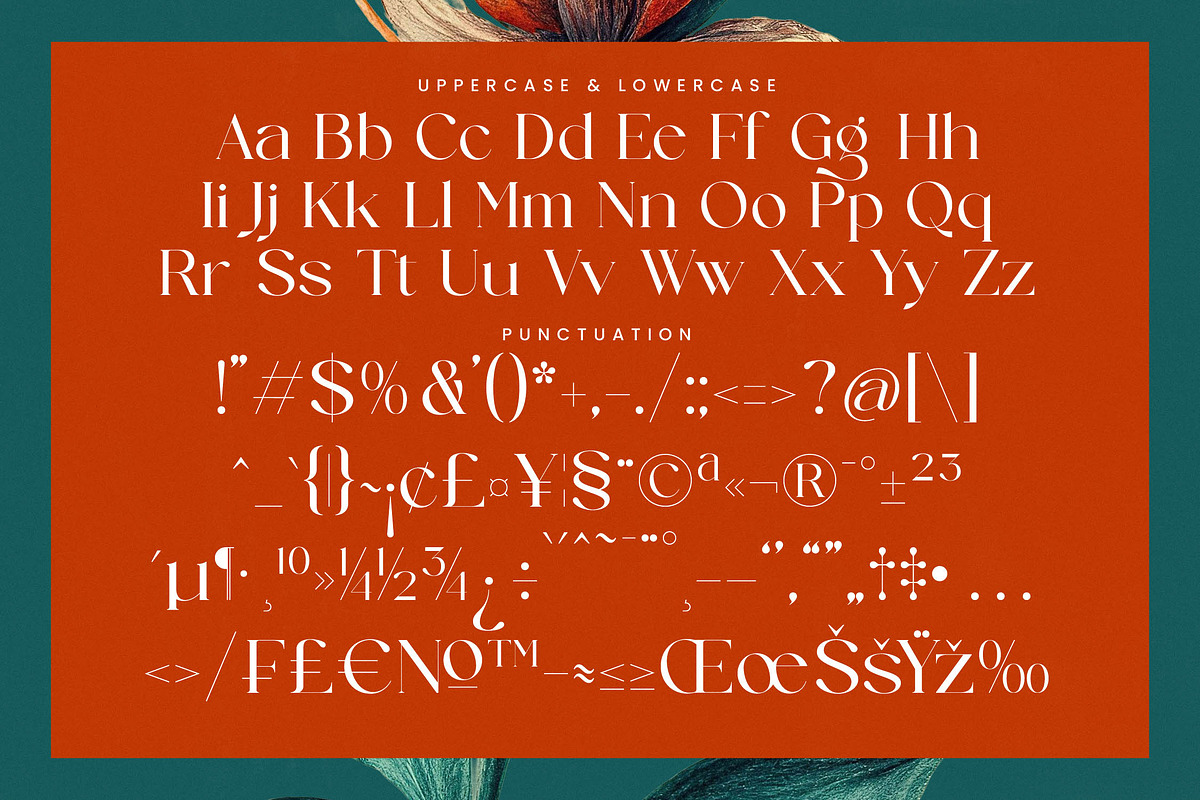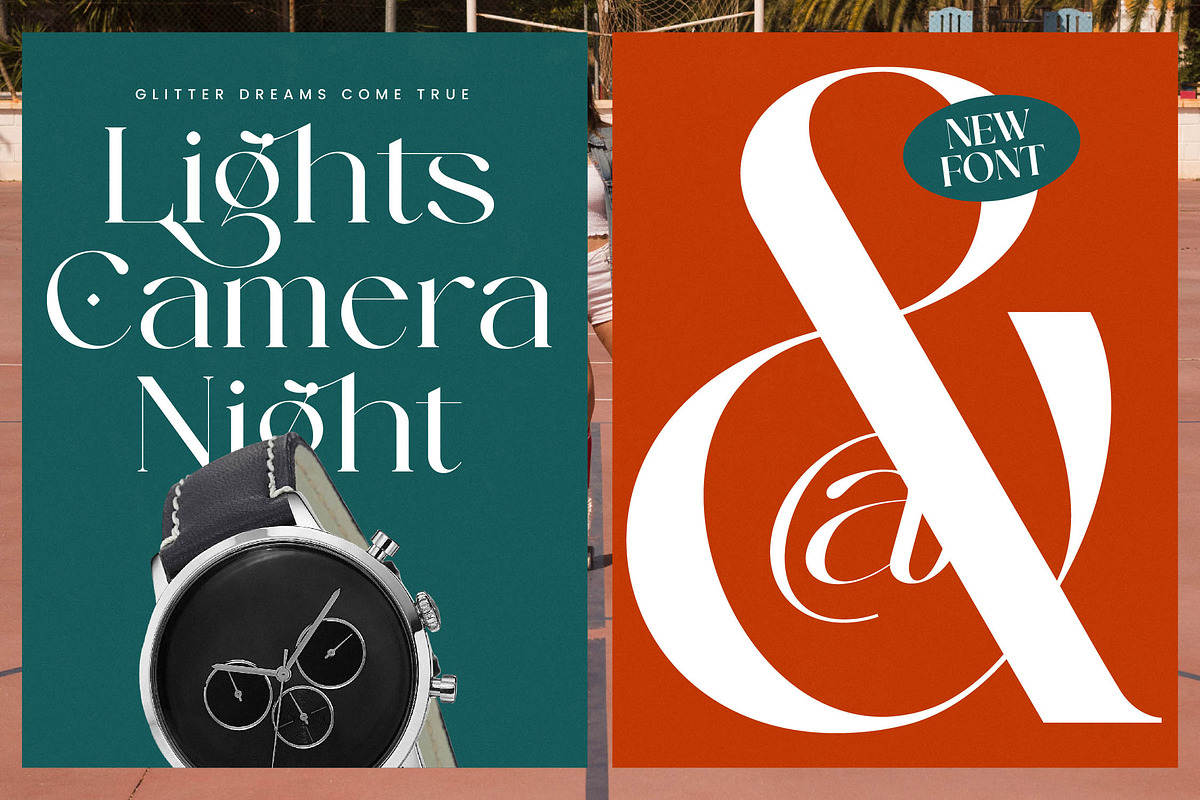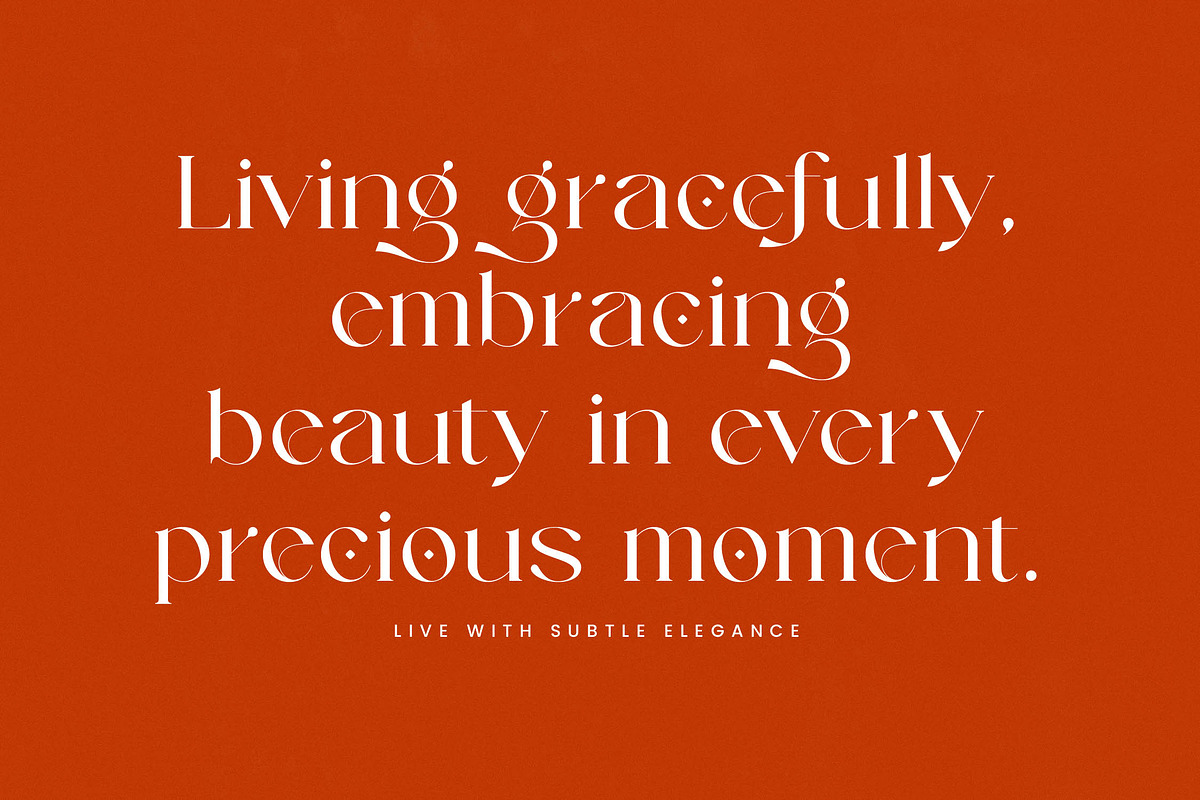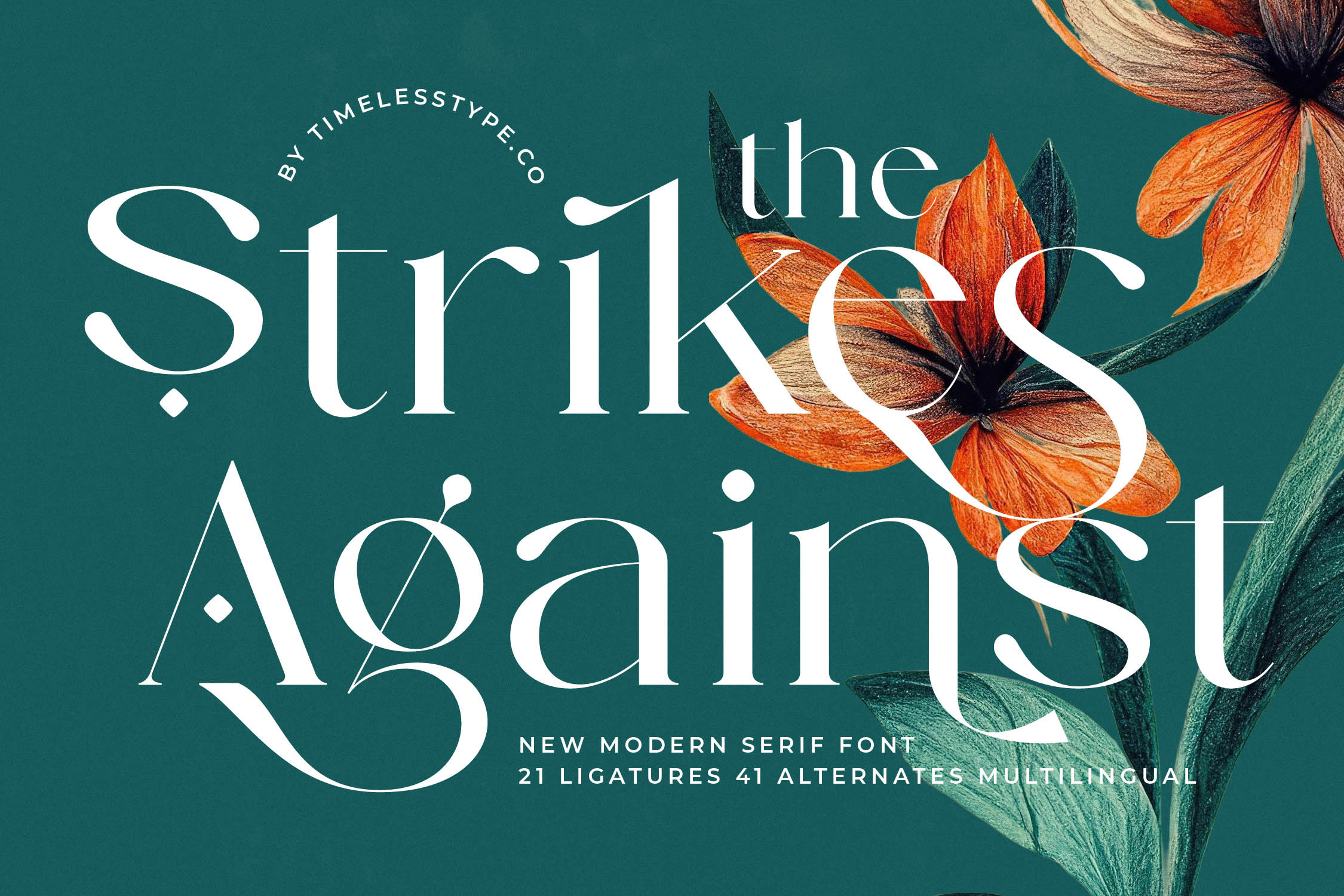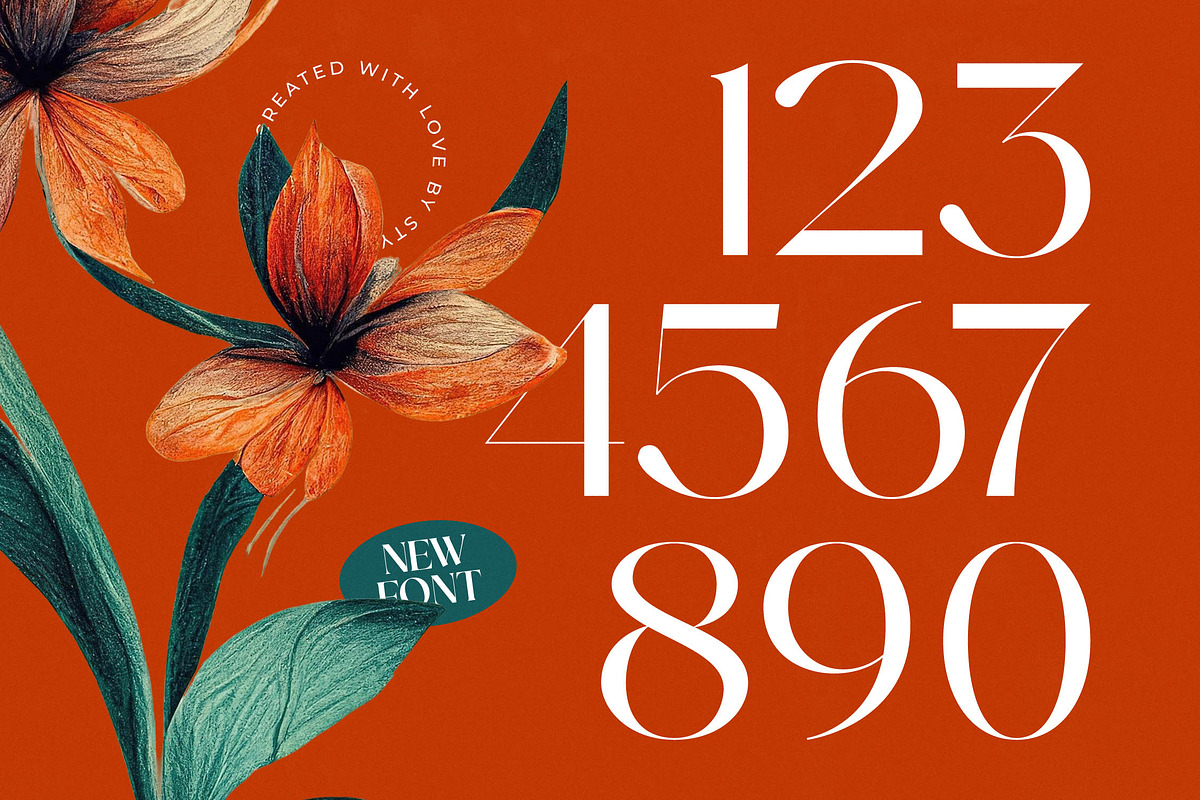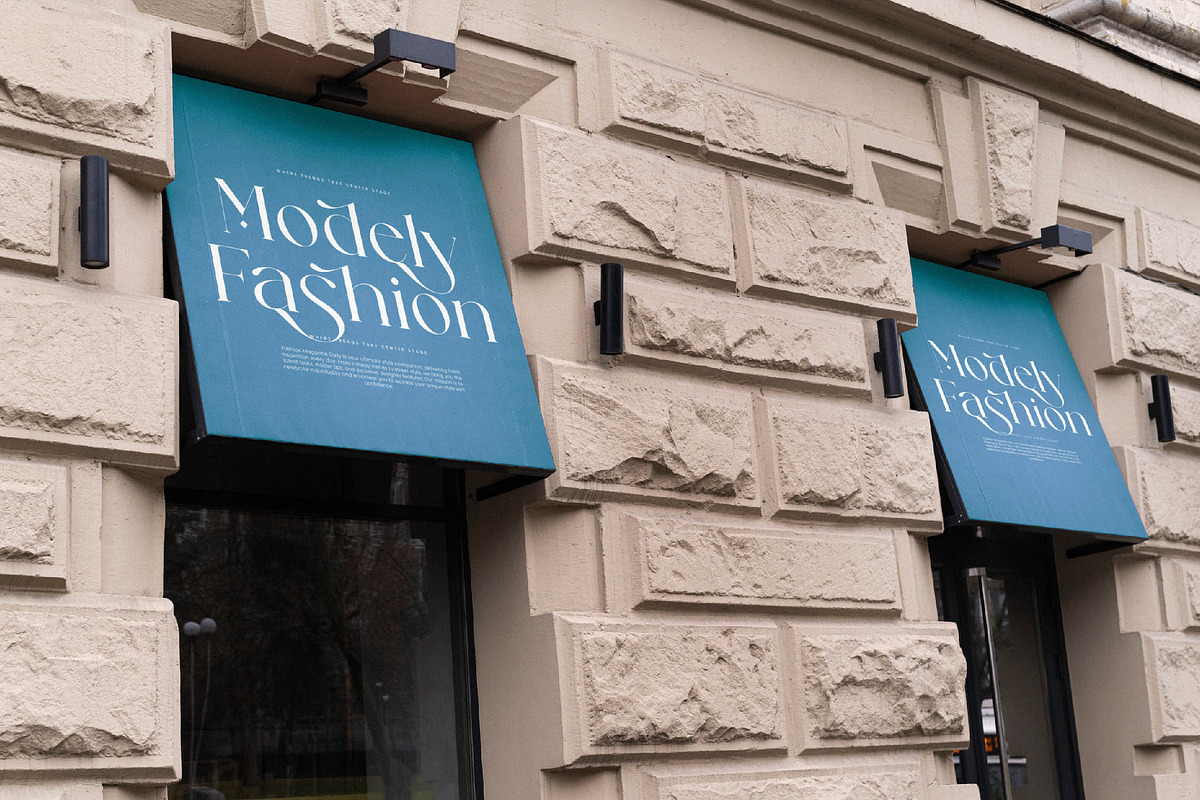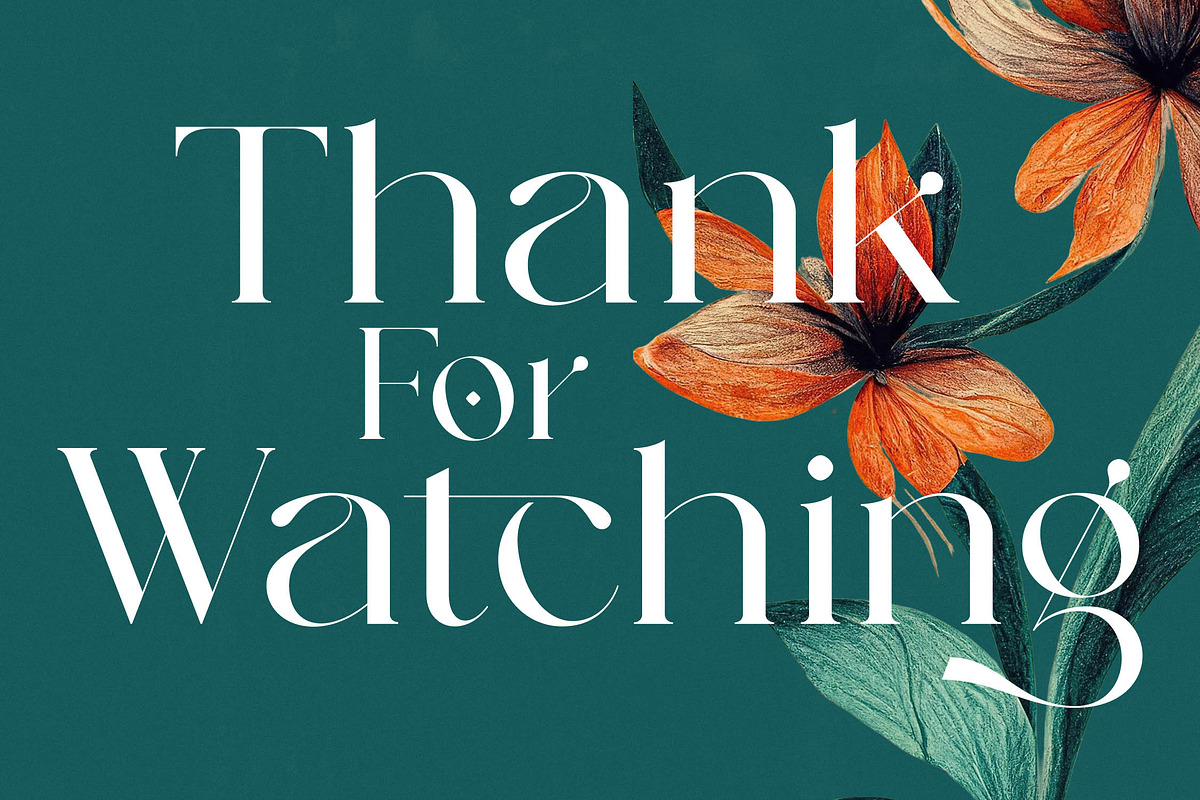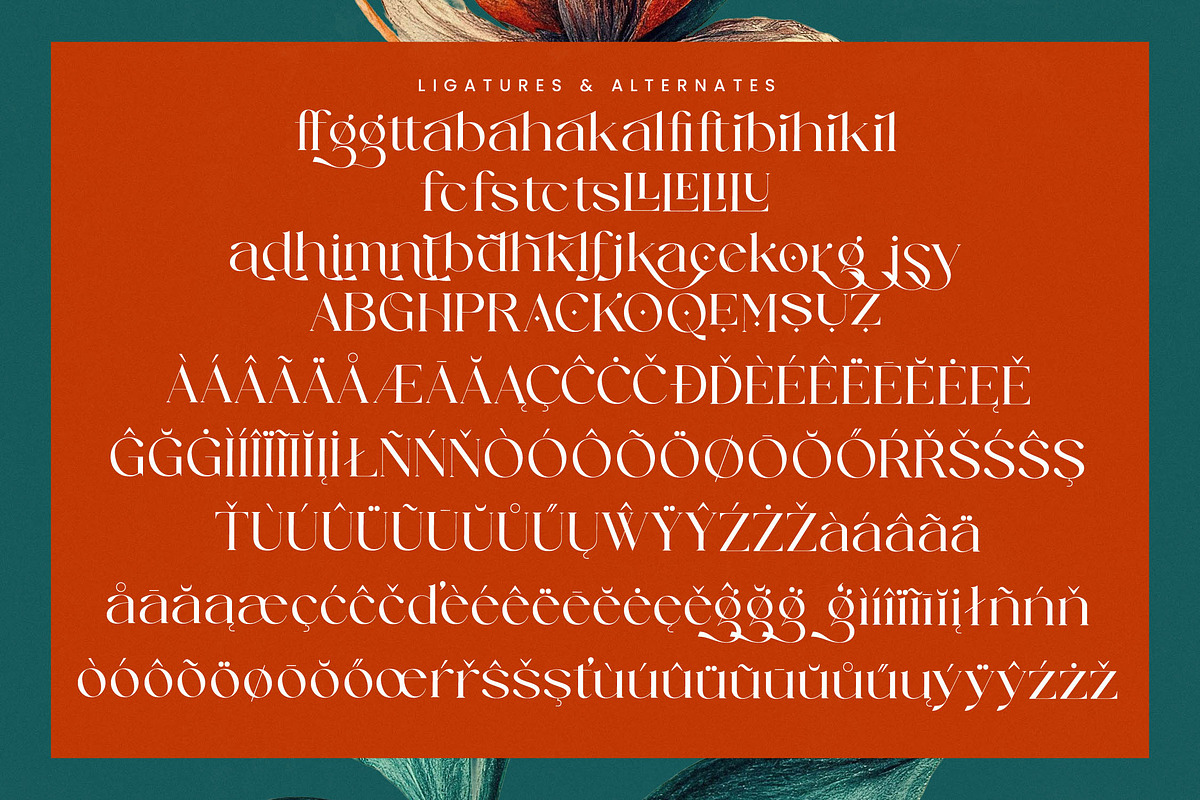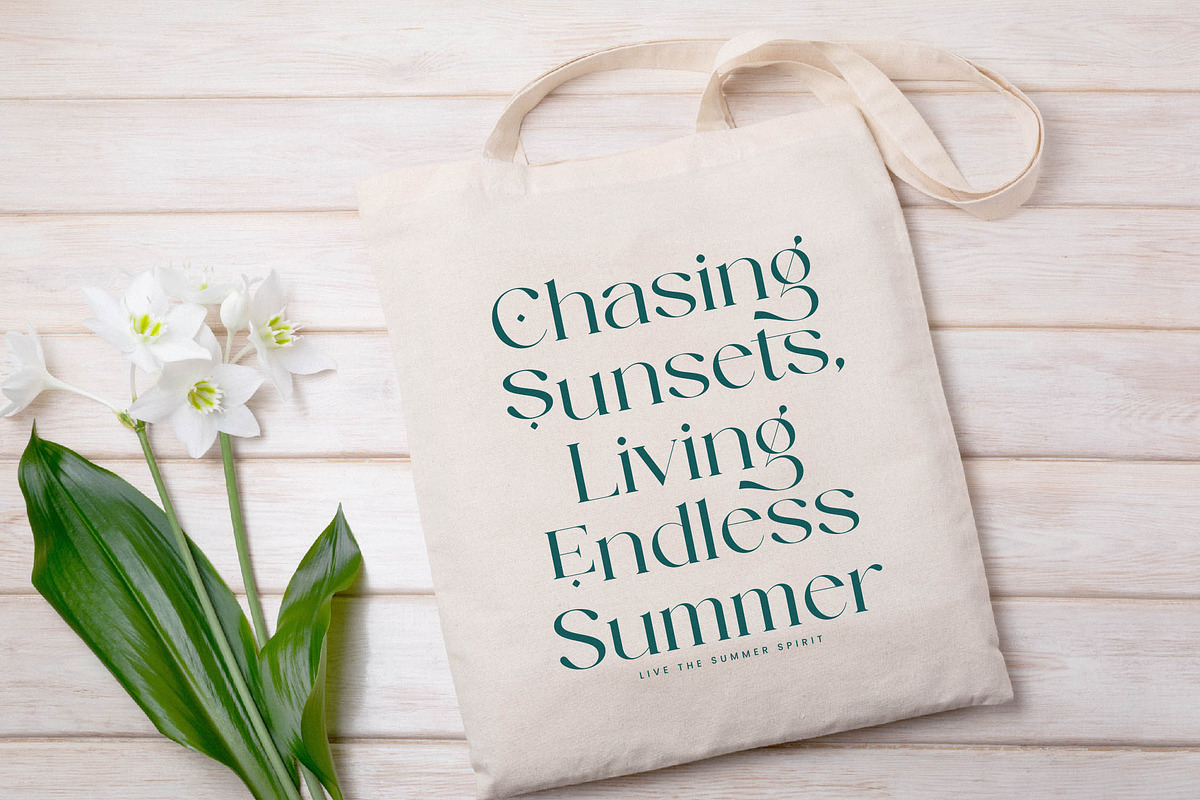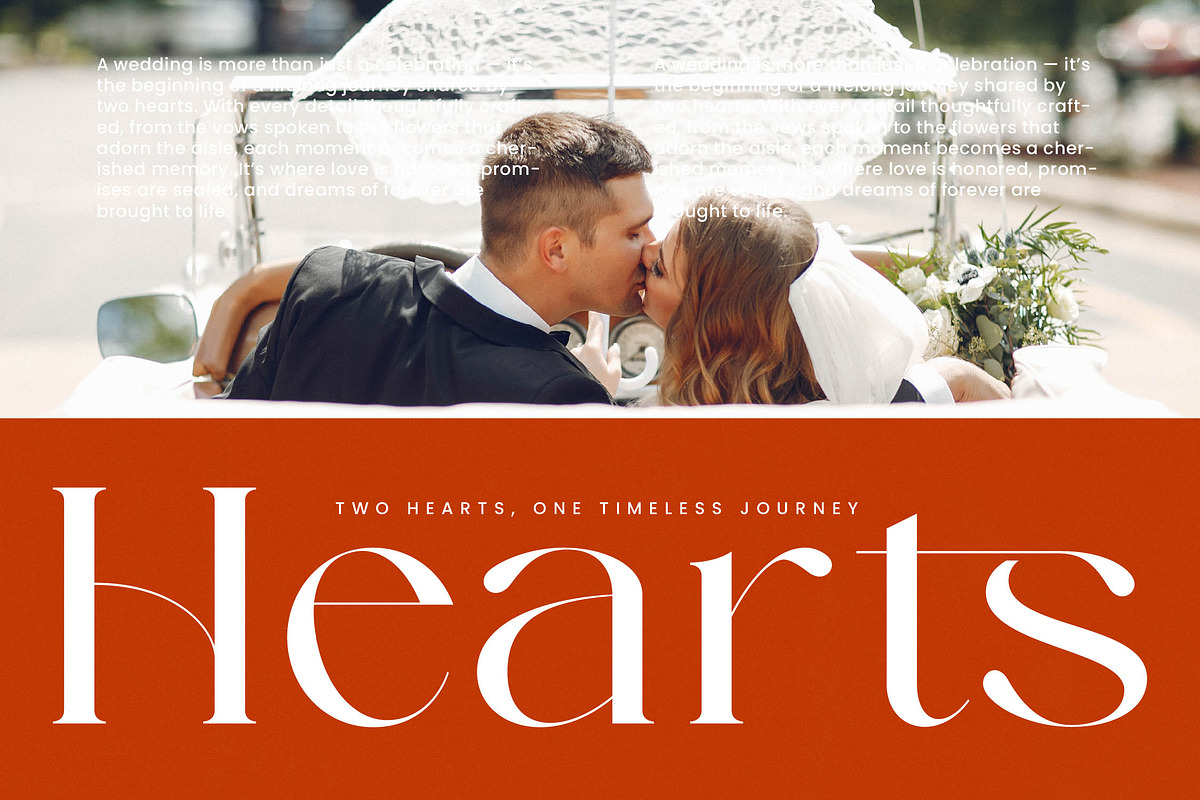
Strikes Against Modern Serif Font
Strikes Against captures the essence of contemporary elegance, blending classic serif foundations with a daring, modern twist. It is a typeface designed to command attention and elevate any creative project with its striking presence.
Inspired by the delicate balance between nature's organic curves and the sharp precision of architectural lines, this font evokes an atmosphere of refined mystery. The visual harmony found in botanical art meets high-fashion aesthetics to create a truly unique typographic experience.
With its modern serif display and high-contrast serif strokes, this font offers a sense of luxury typography that is both timeless and provocative. Every character is crafted for branding impact, making it the perfect editorial font for designers who refuse to settle for the ordinary.
Tapping into the current modern serif trend, this typeface aligns perfectly with the shift toward character-driven typography in global design. It stands out among editorial display fonts by offering a bespoke look that feels handcrafted yet digitally perfect for today's visual landscape.
This versatile typeface is the ultimate choice for logo design, high-end branding, and sophisticated editorial layouts. It excels in luxury packaging, romantic wedding stationery, and bold fashion spreads where a touch of class is paramount.
Unlock a world of creative possibilities with a comprehensive suite of 21 ligatures and 41 alternates that allow for deep customization. The font includes full multilingual support and international characters, ensuring your message reaches a global audience with seamless swashes and flair.
- Ligature 21 Alternate 41